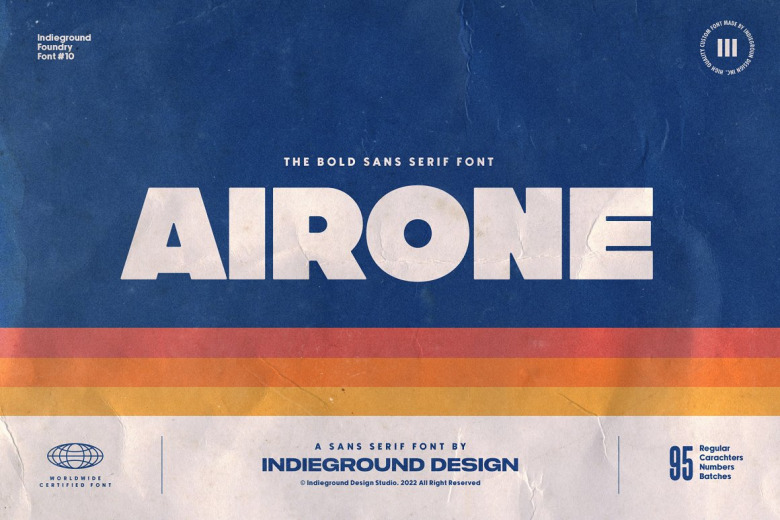
Airone Font
Airone Font is an all caps, very bold contemporary sans-serif font package of Indieground Design Inc. Suitable for artworks or texts bringing retro and modern relations comes into ones touch. It’s ideal for any mood or typographical graphic design where a stable setting is needed.
A font that is attention grabbing and has volume but still artsy to spice up all your creative projects. This full version includes complete character set and the outlined, as presented in the preview picture.